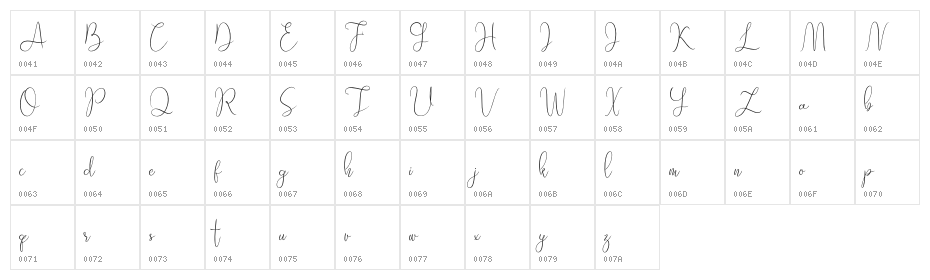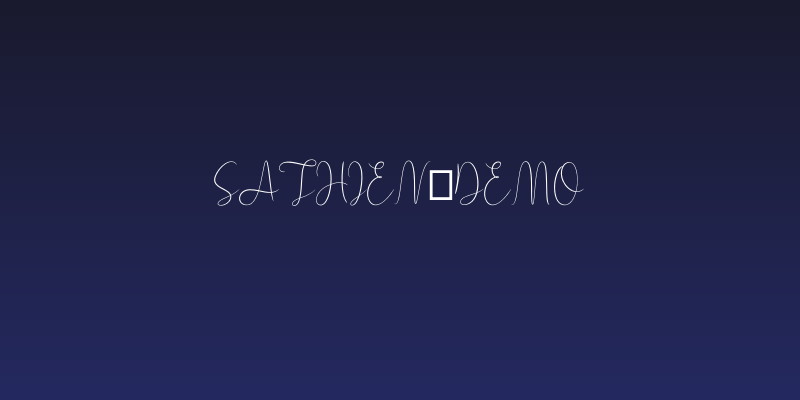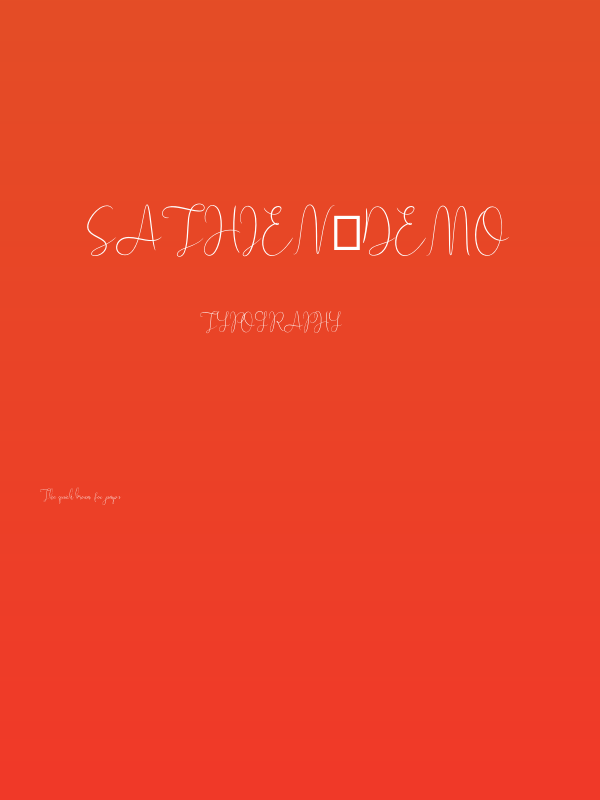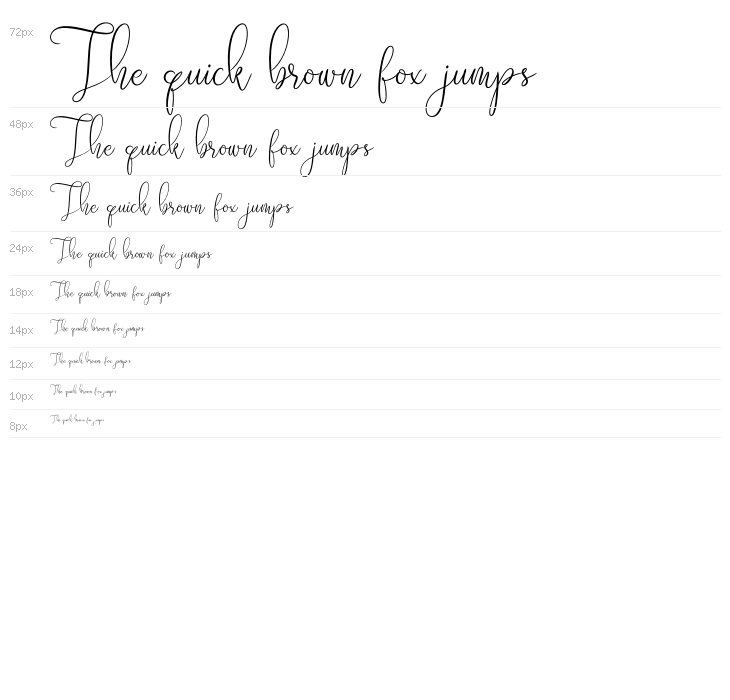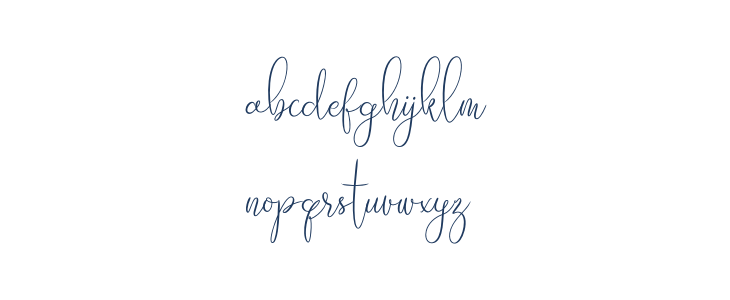
Sathien_demo Font
Sathien_demo Description
This elegant script font features a flowing, cursive style with delicate loops and swashes that give it a sophisticated and graceful appearance. The uppercase letters are characterized by their tall, slender forms with intricate flourishes, while the lowercase letters maintain a consistent, smooth flow that enhances readability. The font's overall design is reminiscent of traditional calligraphy, yet it incorporates modern elements that make it suitable for contemporary use. The characters are well-spaced, ensuring clarity and balance across different text sizes. This font is ideal for projects that require a touch of elegance and refinement, such as wedding invitations, branding materials, and high-end product packaging.
| Overall Style | Elegant, Modern |
| Use Case | Headlines, Invitations, Branding |
| Proposed Projects | Wedding invitations, branding materials, high-end product packaging. |